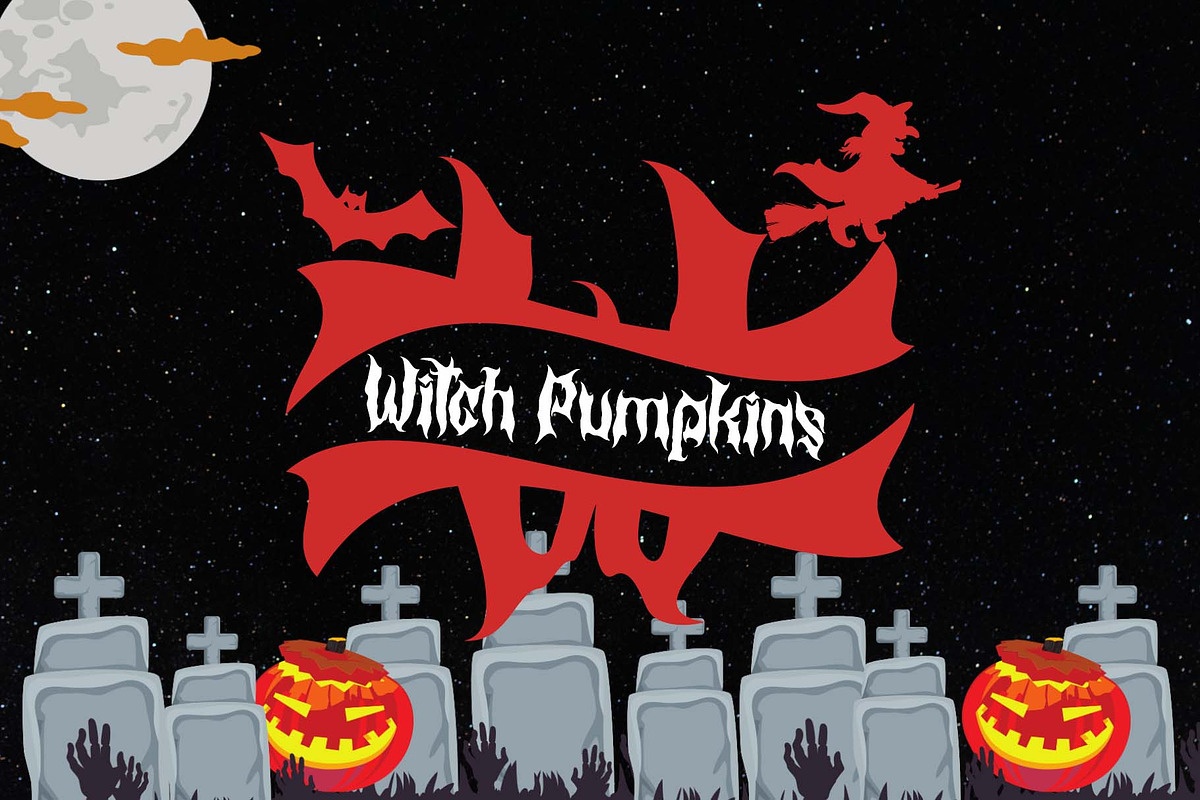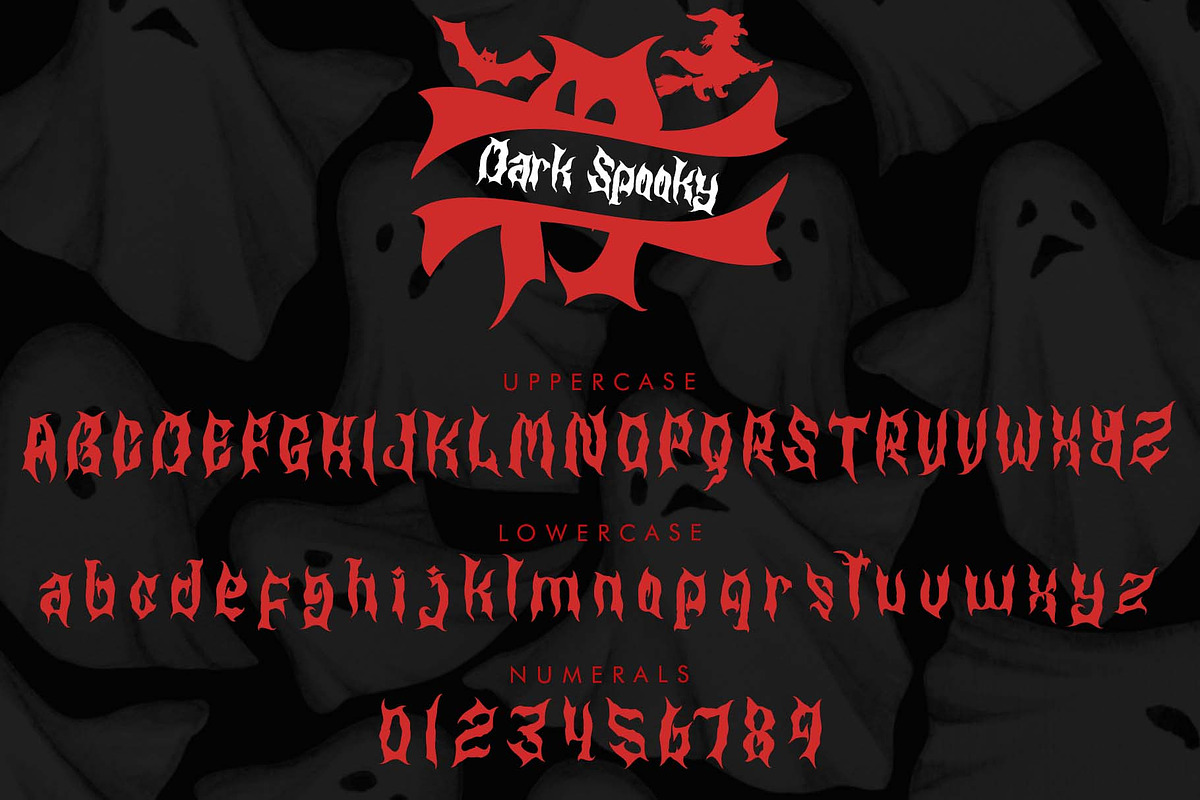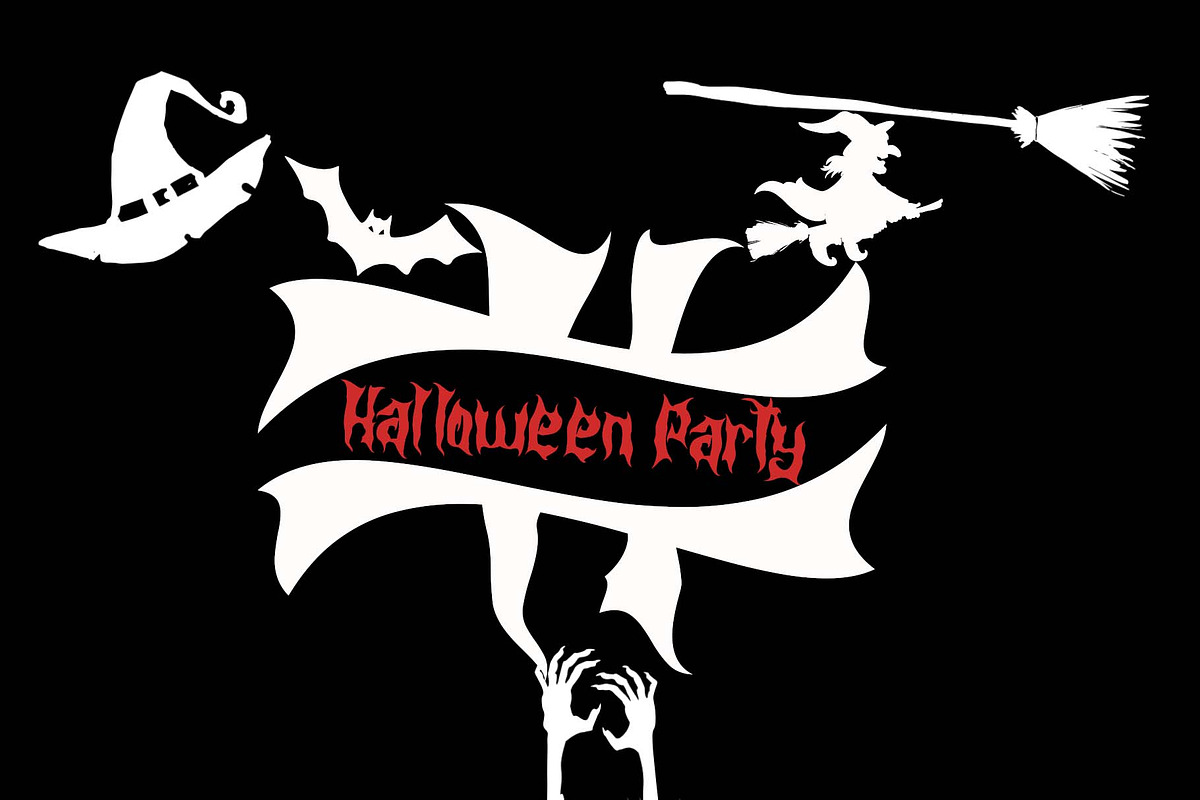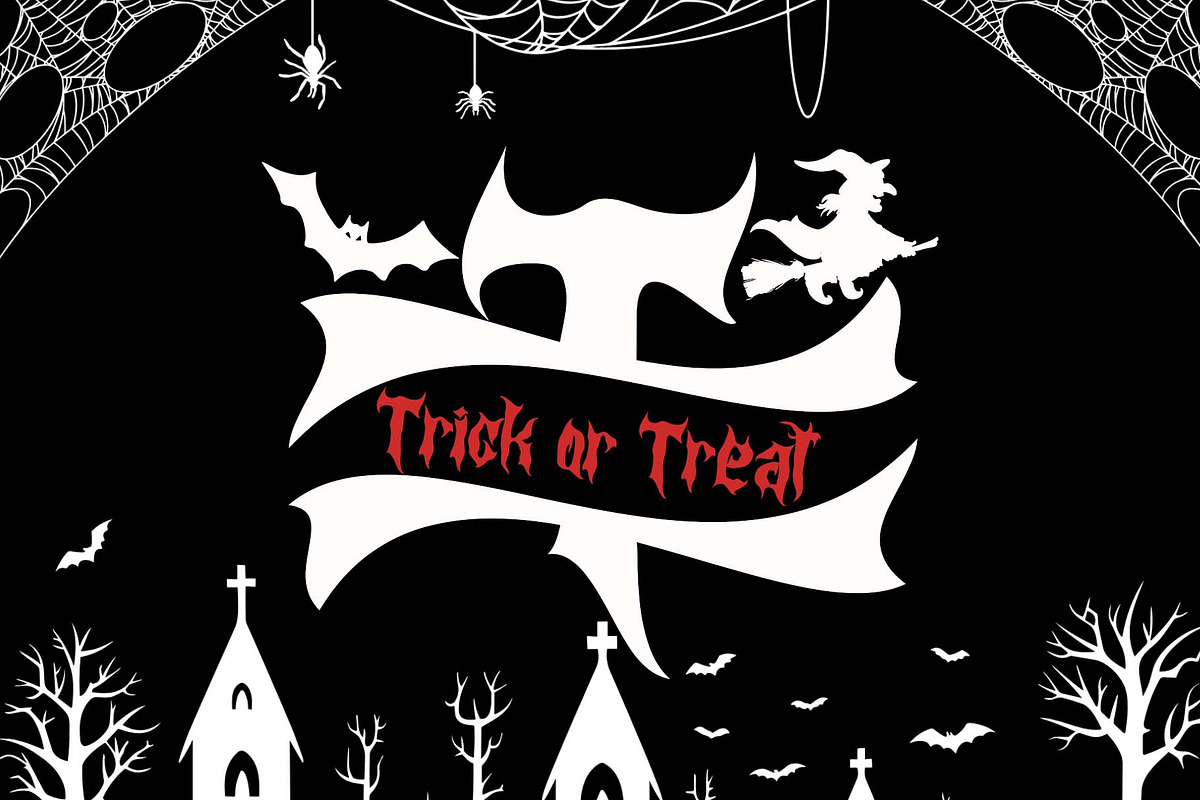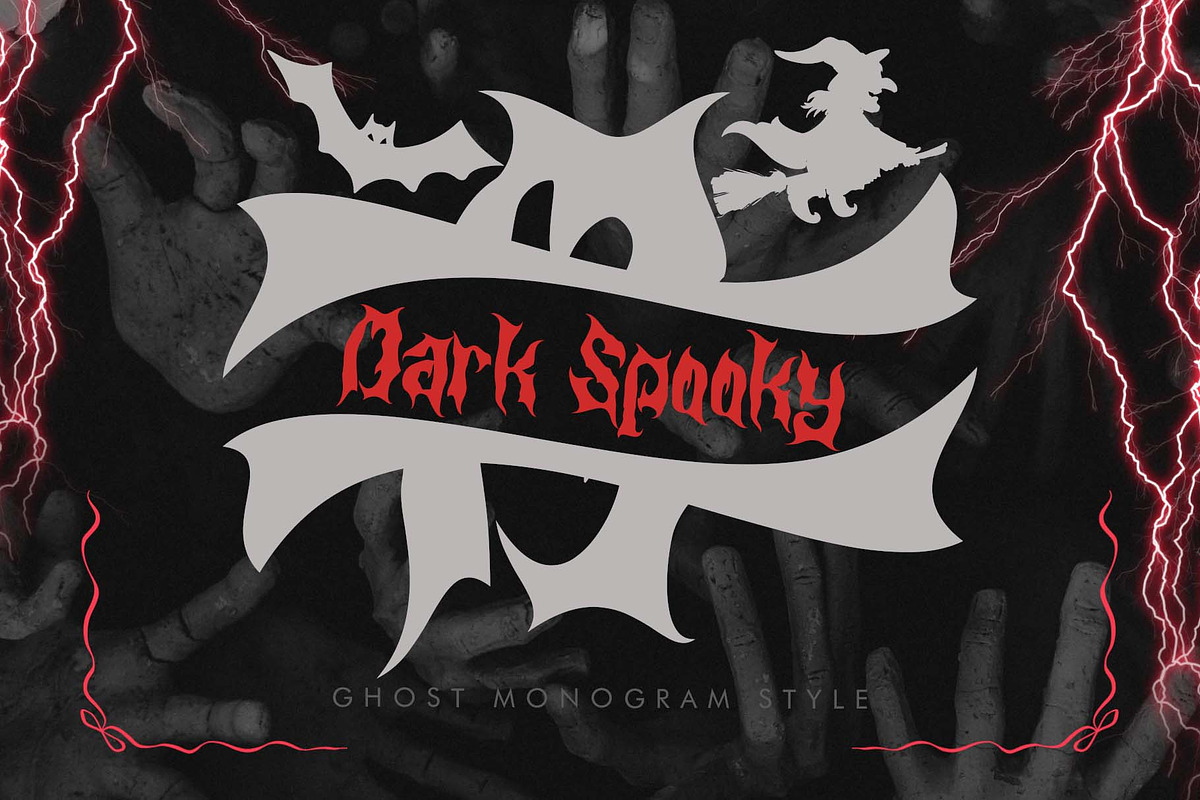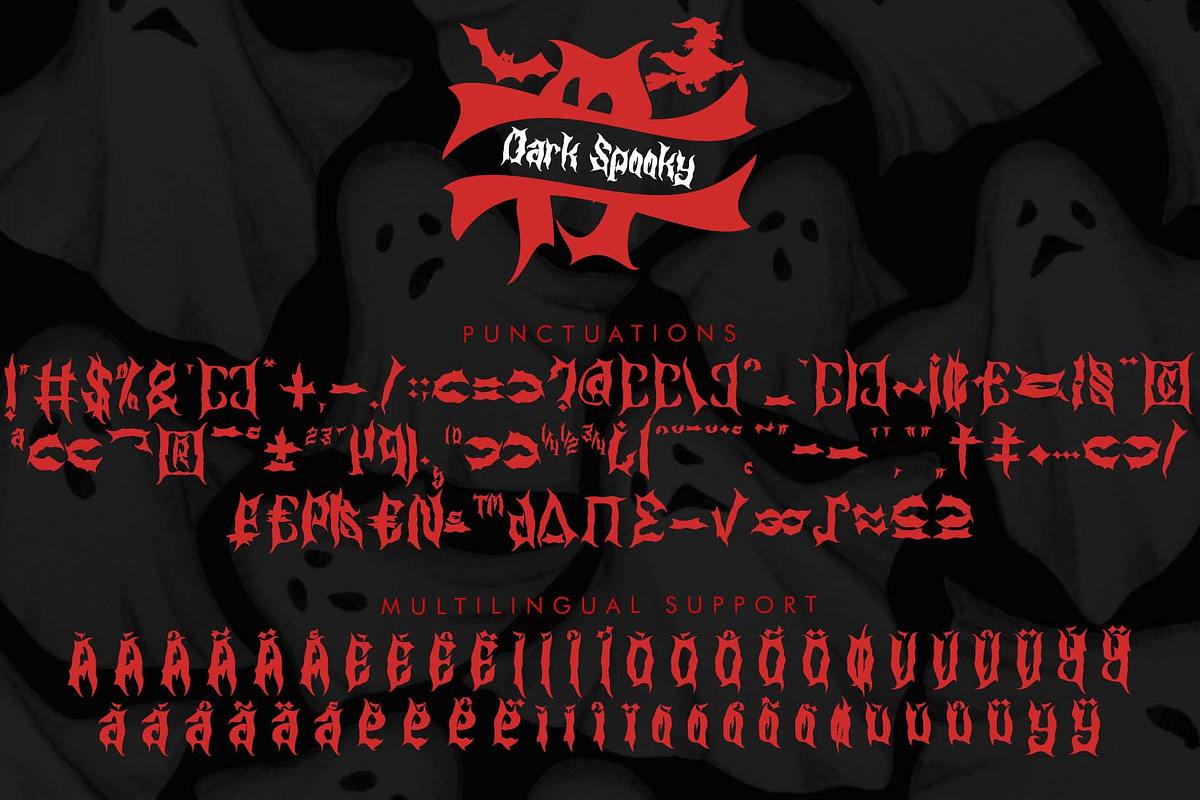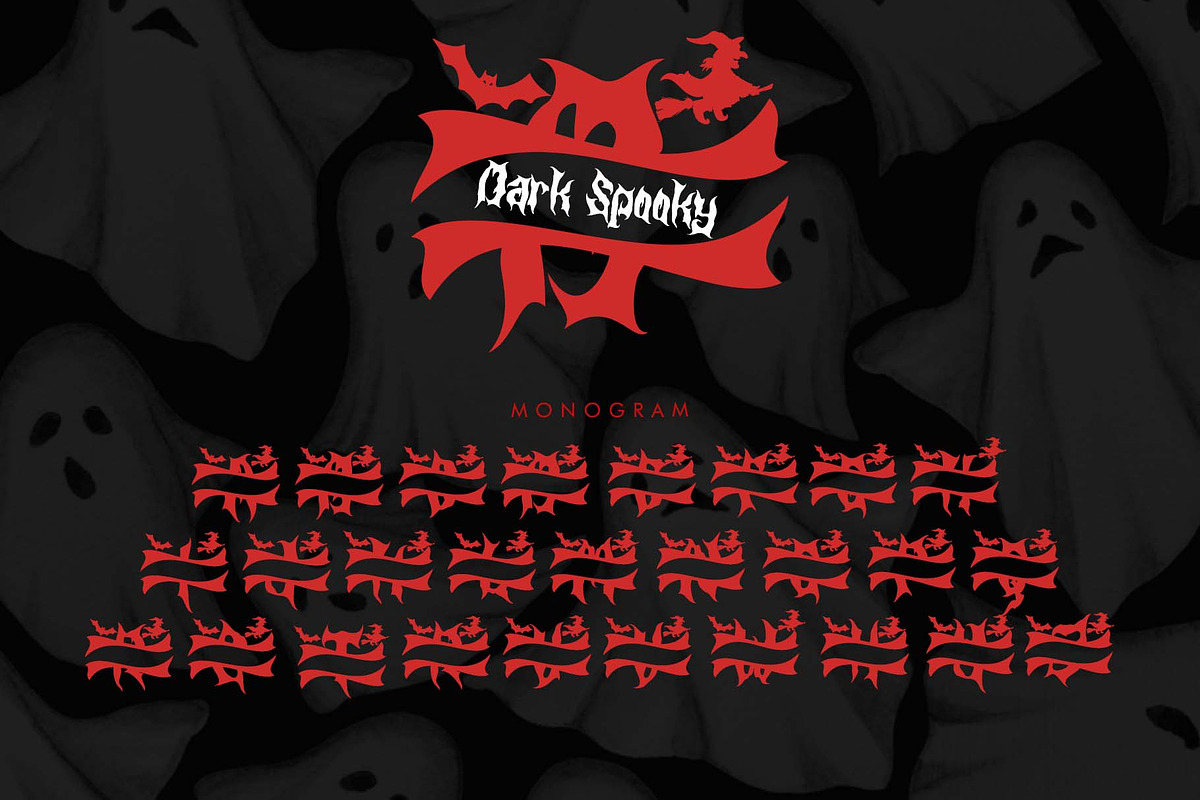
Dark Spooky Monogram
"Dark Spooky Monogram" is a spooky and horror-themed monogram font. It features horror monograms, uppercase and lowercase letters, numerals, punctuations, and multilingual support. It's perfect for Halloween, Christmas, festivals, logos, stickers, posters, prints, banners, branding, tattoos, fall, autumn, horror movie titles, book titles, comics, t-shirts, ghost stories, and more.